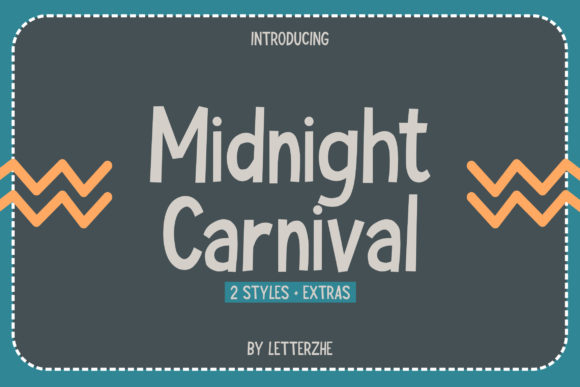
Step into the enchanting realm of Midnight Carnival, a display font that embodies the captivating allure of a midnight fair. Each letter dances across your screen, infused with a touch of whimsy that will ignite your imagination.
With its playful curves and enchanting swirls, Midnight Carnival holds the power to transform ordinary designs into extraordinary creations. Imagine your words taking center stage on t-shirts, phone cases, or greeting cards, radiating an aura of pure magic. Let your invitations come alive with a touch of whimsy, beckoning guests to a world of wonder.
But Midnight Carnival's allure extends far beyond its enchanting appearance. Its versatility knows no bounds, making it the perfect companion for any design endeavor. Whether you're seeking to add a touch of whimsy to your branding or create designs that evoke a sense of childlike glee, Midnight Carnival has you covered.
So why settle for ordinary fonts when you can embrace the enchanting magic of Midnight Carnival? Its ability to transform words into works of art will leave a lasting impression on all who behold it. Embrace the spirit of the midnight carnival and let your designs dance with delight!